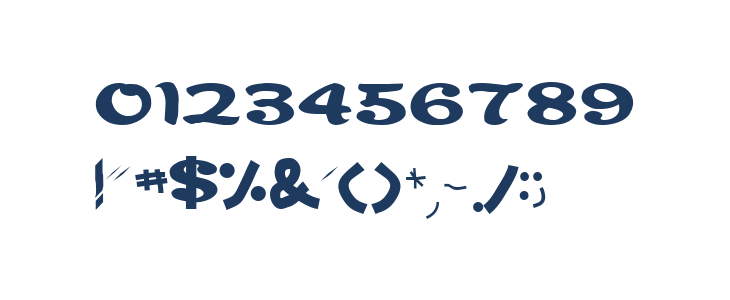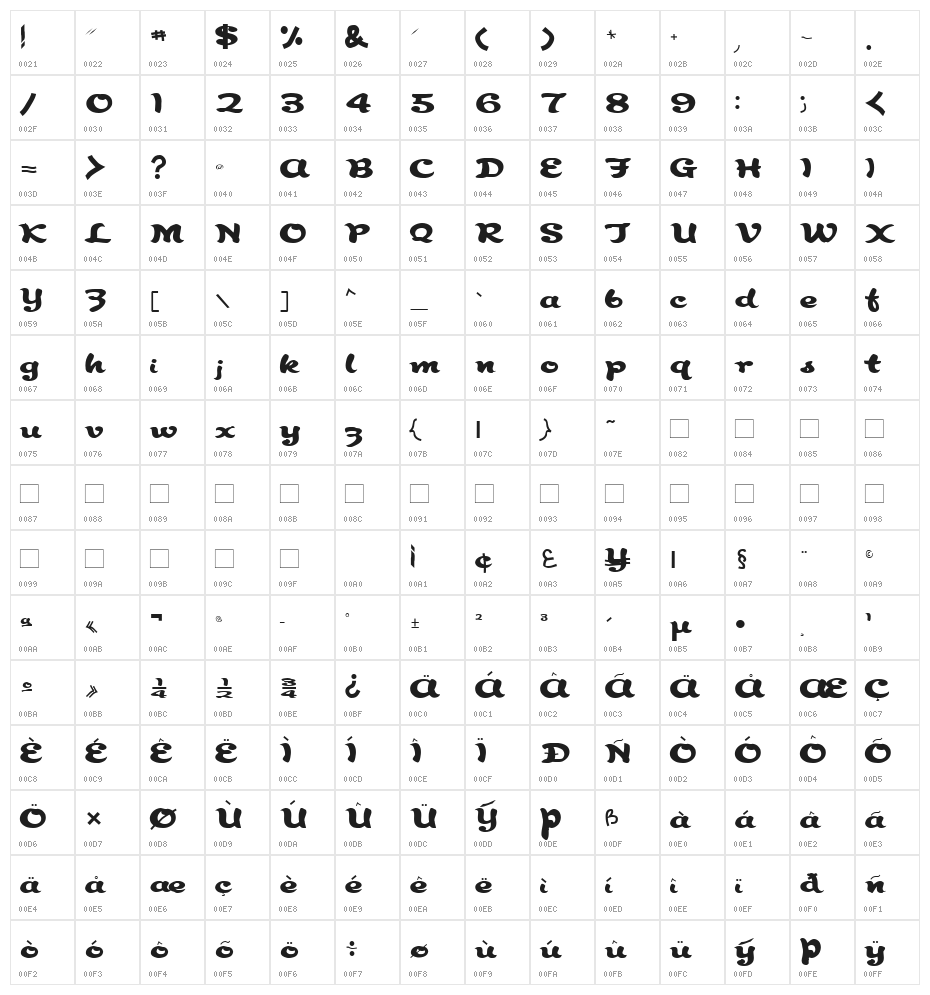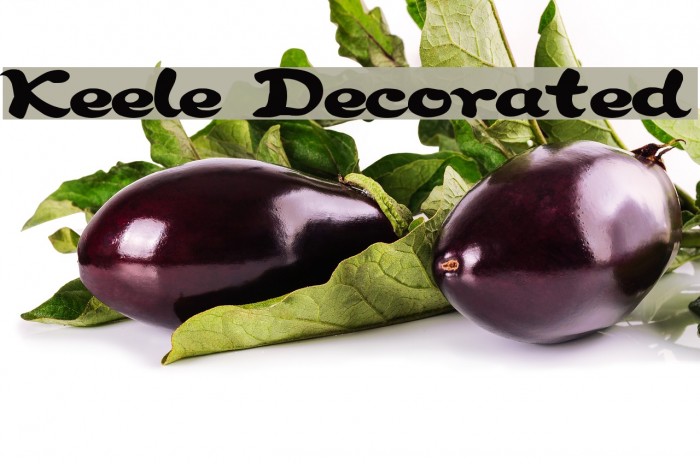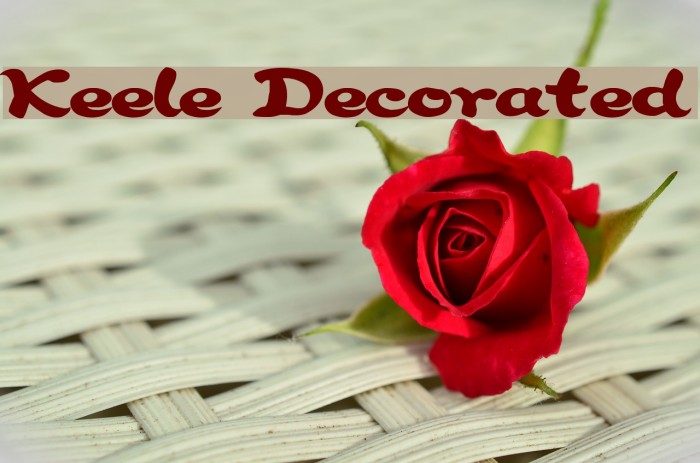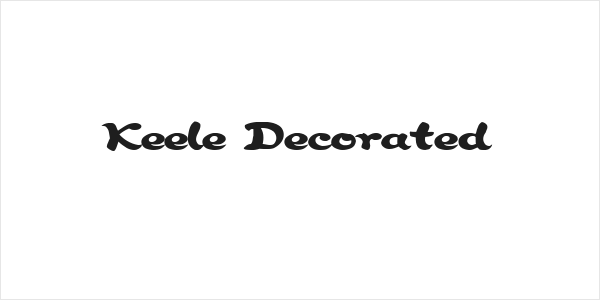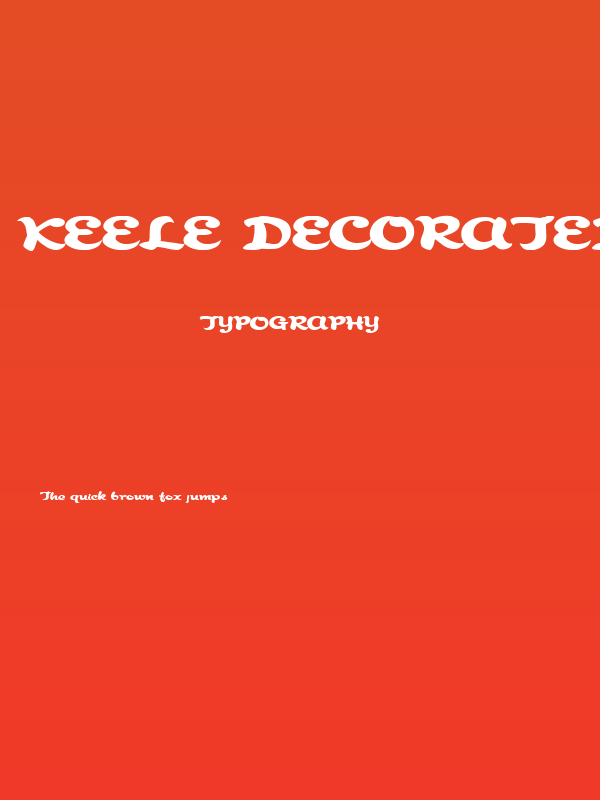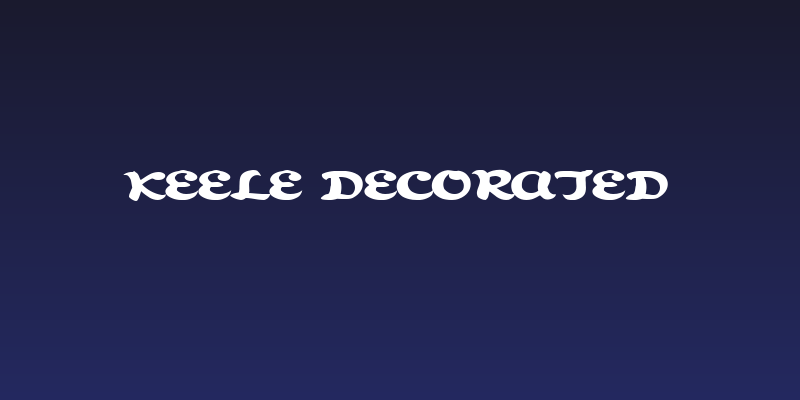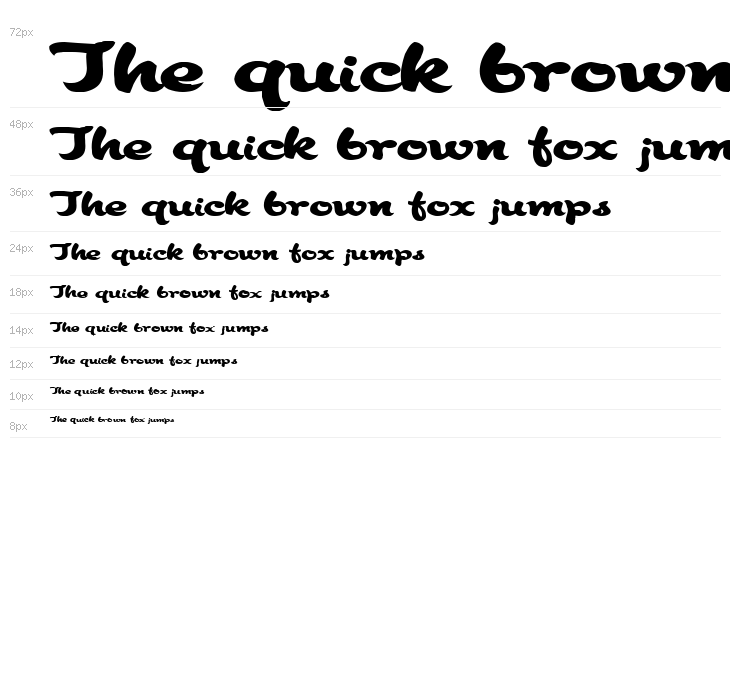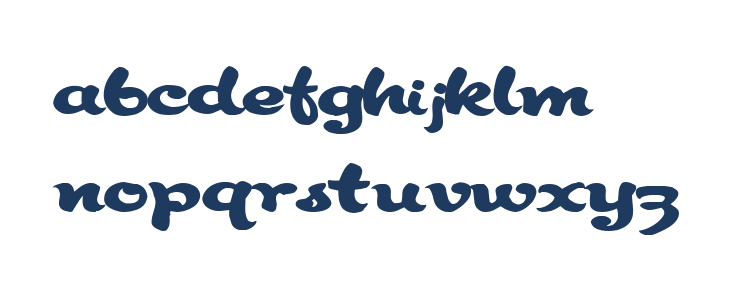
Keele Decorated Font
Keele Decorated Description
This font features a bold and decorative style with a playful and artistic flair. The characters are thick and rounded, with a whimsical touch that adds a sense of movement and energy. The uppercase and lowercase letters maintain a consistent style, with exaggerated curves and unique shapes that give the font a distinctive personality. The numbers and special characters follow the same design principles, ensuring a cohesive look across all elements. This font is ideal for projects that require a bold and eye-catching display, such as posters, logos, or creative headlines.
| Proposed Projects | Ideal for posters, logos, creative headlines, and any design needing a bold, artistic touch. |